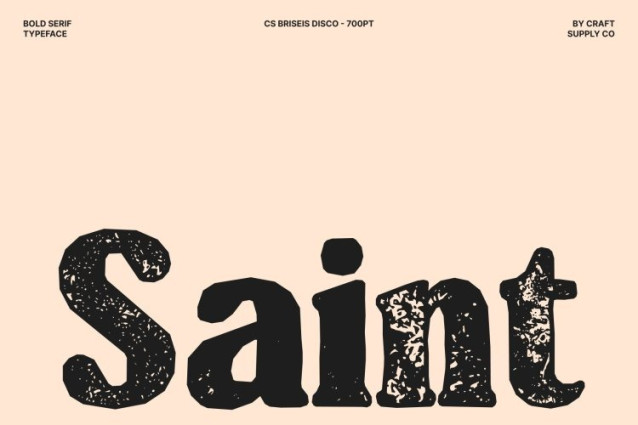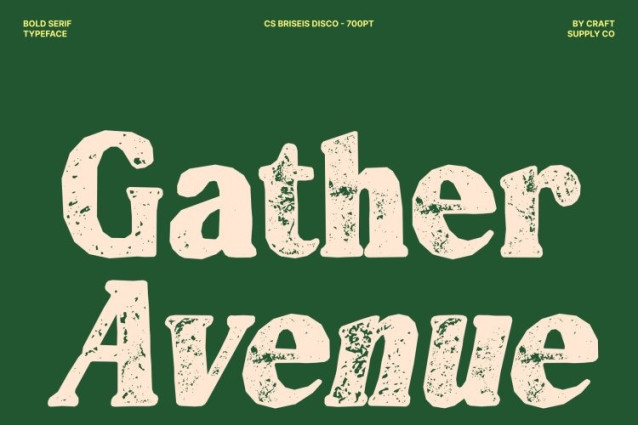
CS Bolt Stamp Font This is a bold serif font designed to command attention through strong weight and confident structure, now enhanced with a stamped texture. Its solid letterforms create an immediate visual impact, while the subtle imperfections of the stamp effect introduce a tactile, handcrafted feel. This combination delivers authority and stability with added personality and visual depth.
Strong Forms Balanced with Playful Softness
What sets this font apart is its balance between bold strength and gentle softness. Thick strokes and sturdy serifs project confidence and dominance, while rounded curves and softened details prevent the design from feeling harsh. The stamped texture further enriches this balance, giving the font a warm, expressive, and slightly vintage character.
Modern Energy with Artistic Texture
Rooted in modern typography, this font feels fresh, energetic, and contemporary. The stamped effect adds an artistic layer that brings movement and authenticity to the letterforms, making the font feel more human and expressive. This texture helps the font stand out without overwhelming the design, creating a confident yet approachable tone.
Perfect for Headlines, Posters, and Bold Branding
Ideal for headlines, posters, packaging, and impactful branding, excels in designs that need to grab attention instantly. Whether used for modern brand identities, statement typography, or bold visual campaigns, it delivers a powerful look enriched with stamped texture combining modern confidence with timeless, handcrafted charm.